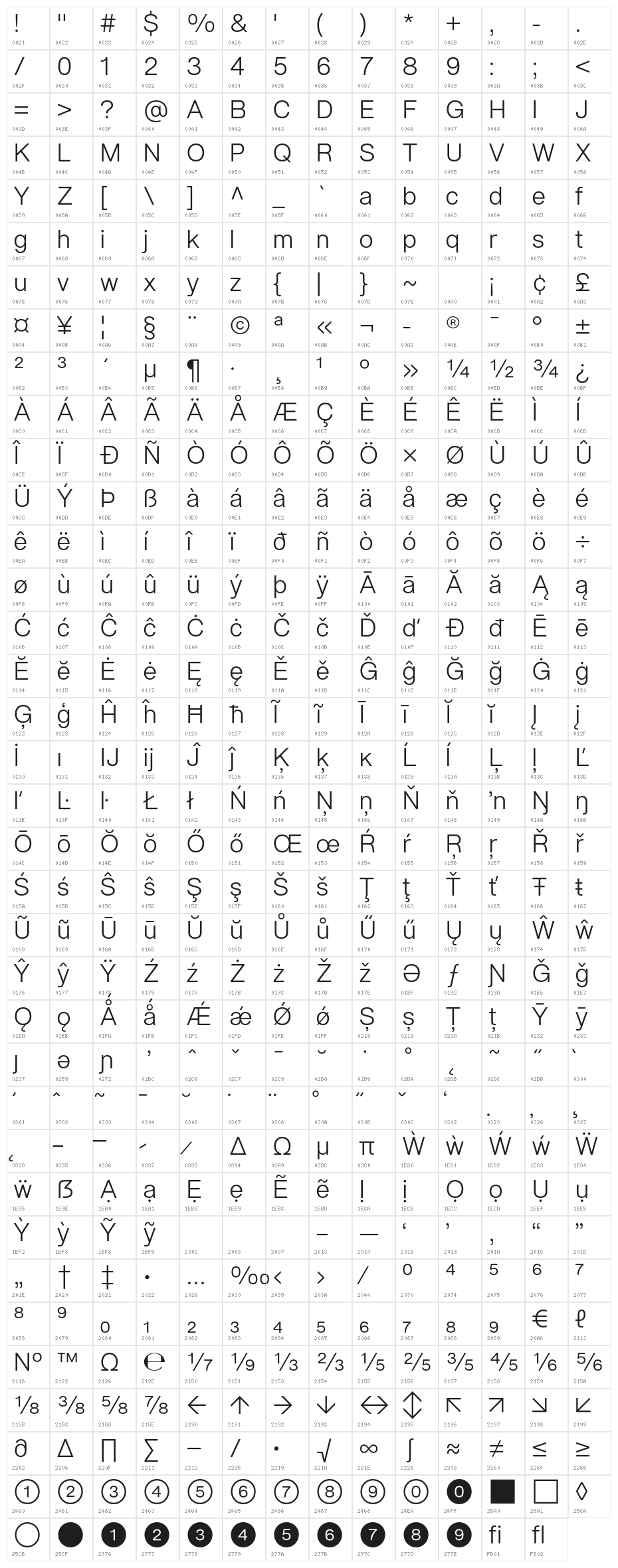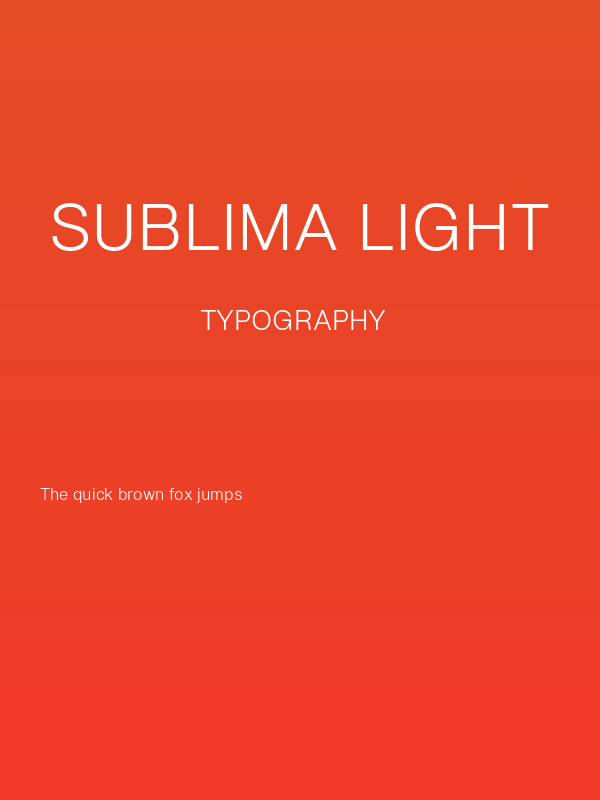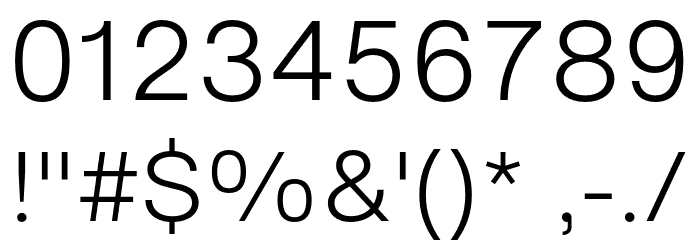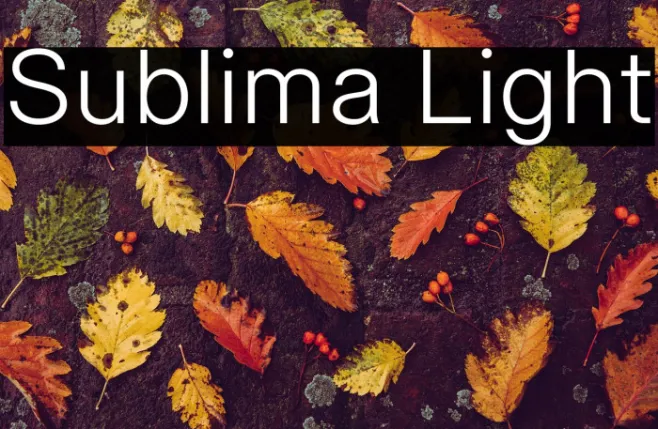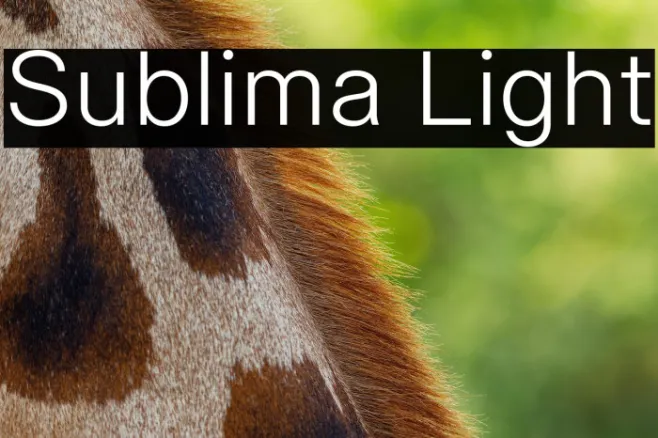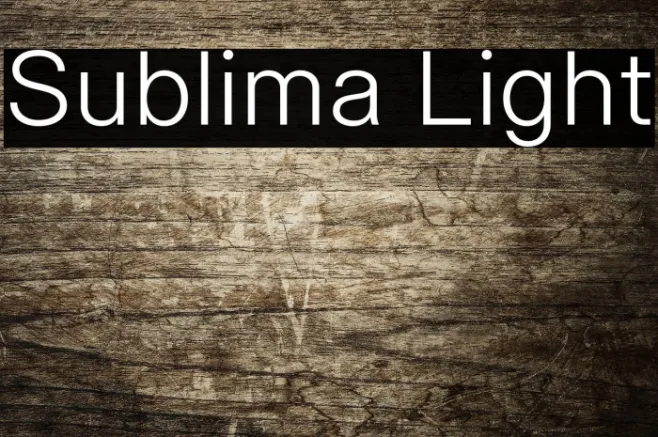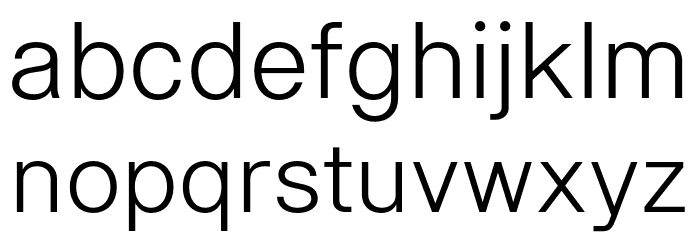
Sublima Light Font
Sublima Light Description
This font features a clean and modern sans-serif design, characterized by its simplicity and clarity. The letterforms are uniform and geometric, with consistent stroke widths that contribute to a harmonious appearance. The uppercase letters are slightly taller than the lowercase, providing a balanced and readable text. The numerals are proportional, aligning well with the overall style. Special characters are designed with the same attention to detail, ensuring they integrate seamlessly with the rest of the typeface. This font's minimalistic approach makes it versatile for various design applications.
| Proposed Projects | Ideal for branding, web design, corporate materials, and editorial layouts. |